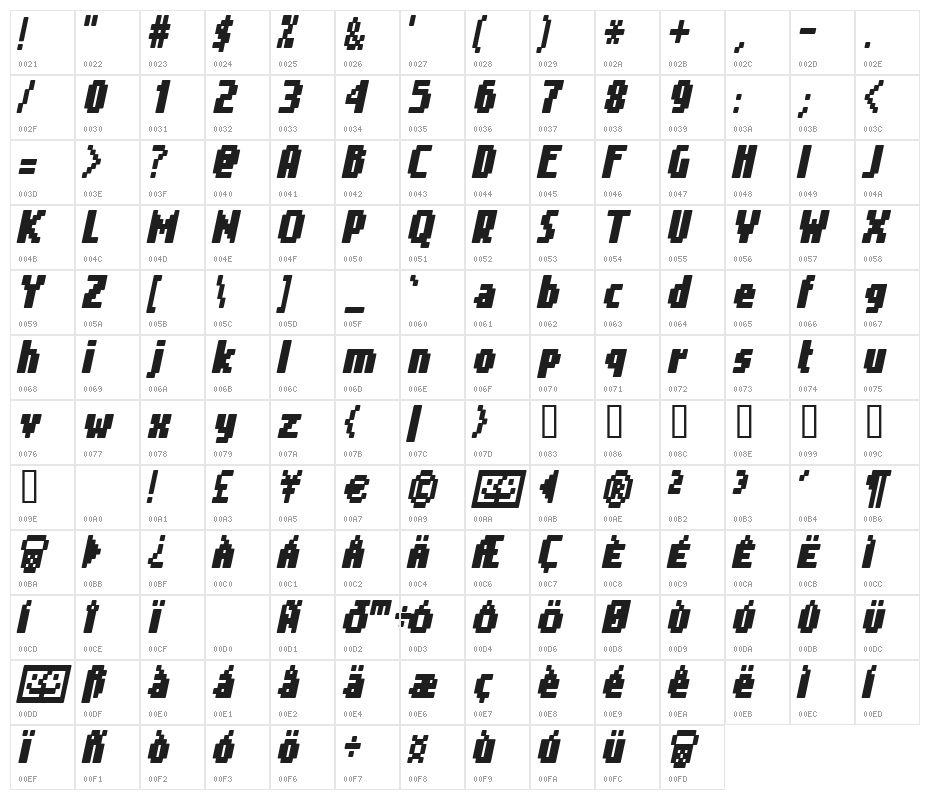
Gimenells Italic Font
Gimenells Italic Description
This font features a bold and dynamic design with a distinctive italic slant, creating a sense of movement and energy. The characters are blocky and geometric, with sharp angles and a consistent stroke width that gives it a modern, digital feel. The uppercase and lowercase letters maintain a uniform style, while the numbers and special characters complement the overall aesthetic. The font's boldness and unique style make it stand out, ideal for projects that require a strong visual impact.
| Proposed Projects | Ideal for digital artwork, video game graphics, posters, and branding materials that require a bold and modern look. |